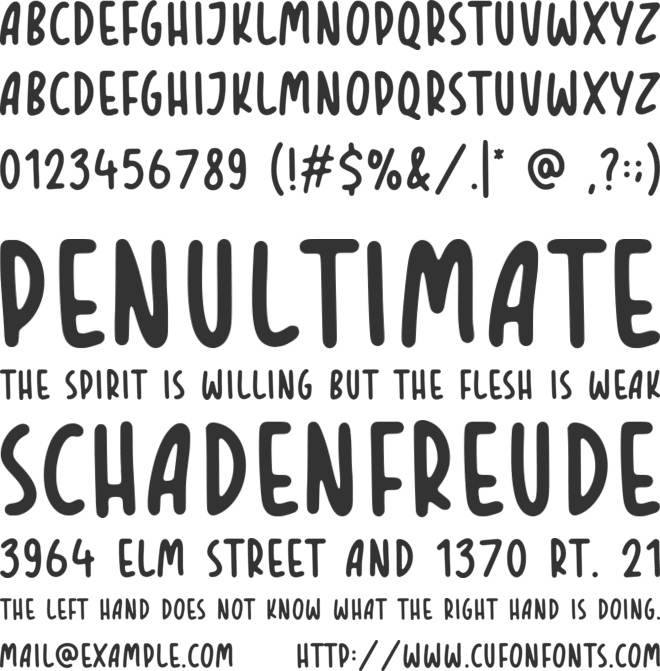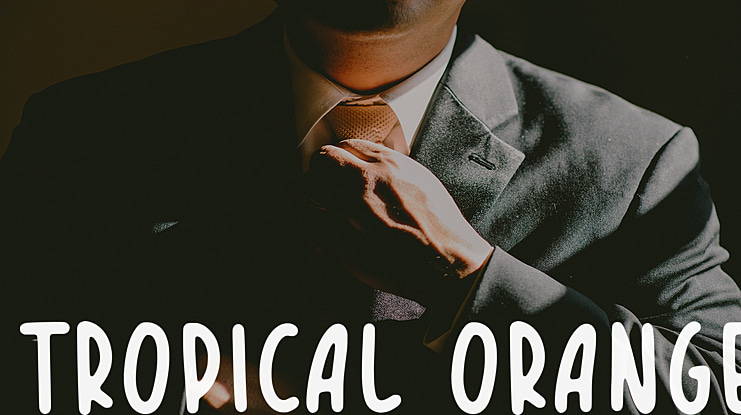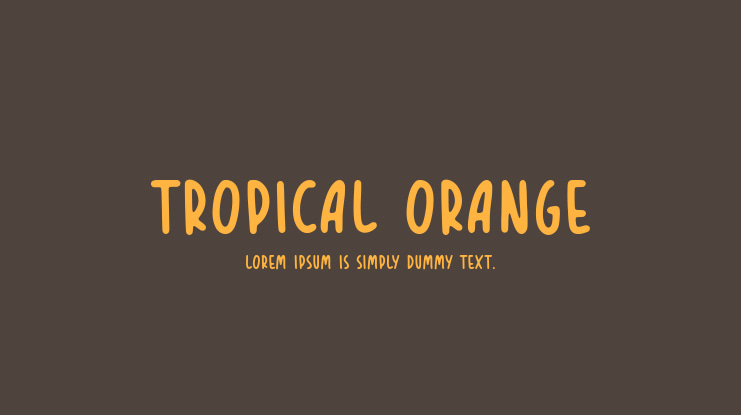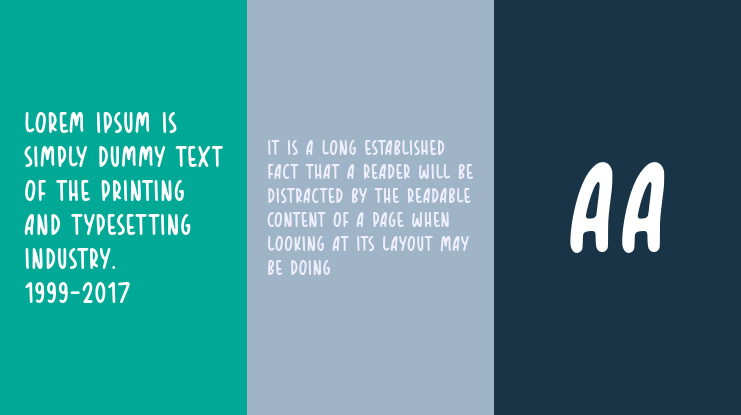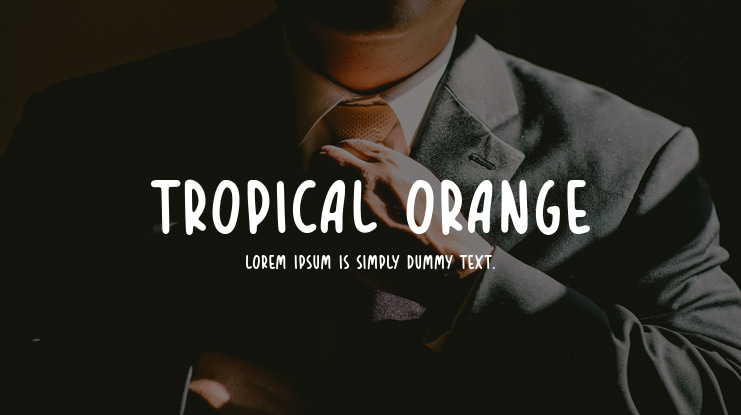
TROPICAL ORANGE Font
Balpirick Studio
Introducing by Balpirick Studio.
Proudly Present, TROPICAL ORANGE Font.
TROPICAL ORANGE is a Fun Modern Handdrawn Font.
TROPICAL ORANGE is perfect for product packaging, branding project, megazine, social media, wedding, or just used to express words above the background.